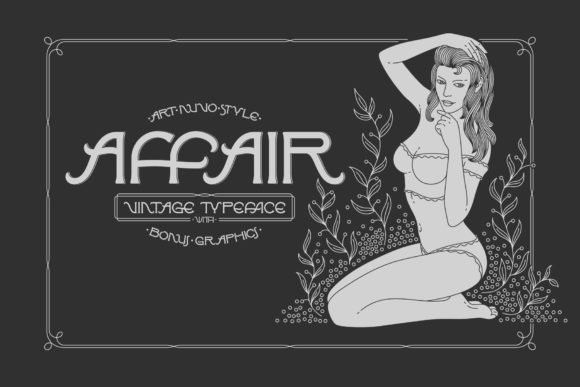
Affair Font: Elevate Your Designs with a Vintage Flair
In the realm of typography, fonts play a pivotal role in defining the aesthetic and tone of any design project. Whether you’re working on a branding campaign, a website, or marketing materials, the choice of font can significantly influence how your message is perceived. For those seeking a unique and captivating look, the Affair font stands out as an exceptional choice. This article explores the Affair font, a vintage-styled and distinct display font designed to infuse your designs with a beautiful and refreshing appeal.
Introduction to Affair Font
Affair is not just another font; it’s a design statement. Crafted with meticulous attention to detail, this vintage-styled display font is perfect for designers who aim to break away from the mundane and inject a dose of elegance and charm into their work. Its distinct character makes it suitable for a wide range of projects, from luxury brand logos and high-end advertising to stylish blogs and captivating social media graphics.
Key Features of Affair Font
So, what makes Affair font a must-have in your typography arsenal? Here are some of its standout features:
- Vintage Aesthetic: The Affair font boasts a classic, vintage look that adds a touch of sophistication and nostalgia to any design.
- Distinctive Characters: Each letter in the Affair font is carefully crafted to ensure uniqueness and legibility, making your text stand out.
- Versatility: Whether you’re designing for digital platforms or print, the Affair font adapts seamlessly, ensuring your design looks great across all mediums.
- Ease of Use: Despite its complex appearance, the Affair font is surprisingly easy to use, compatible with most design software, and requires minimal effort to integrate into your projects.
Use Cases for Affair Font
The versatility of the Affair font makes it suitable for a myriad of design applications. Here are some scenarios where this font truly shines:
- Branding and Logos: Create a lasting impression with a logo that embodies elegance and class. The Affair font can help establish a strong brand identity.
- Advertising and Marketing: Stand out in a crowded marketplace with eye-catching ad copy. The unique style of the Affair font ensures your message captures attention.
- Web Design: Enhance the user experience with a stylish and readable font. The Affair font can add a professional touch to your website’s typography.
- Social Media Graphics: Make your social media posts and stories more engaging with visually appealing text. The Affair font can help increase engagement and make your content more shareable.
Tips for Maximizing the Impact of Affair Font
To get the most out of the Affair font, consider the following design tips:
- Pair it Wisely: Combine the Affair font with simpler fonts for body text to create contrast and improve readability.
- Adjust Size and Color: Experiment with different sizes and colors to emphasize key messages and create visual hierarchy.
- Consider Line Spacing: Ensure adequate spacing between lines for better legibility, especially when using the font for longer texts.
The Affair font is more than just a typeface; it’s a design tool that can elevate your projects with its vintage charm and distinctiveness. Whether you’re a professional designer or a DIY enthusiast, this font offers a straightforward way to add a touch of elegance and sophistication to your work. With its versatility, ease of use, and captivating aesthetic, the Affair font is poised to become a staple in your typography collection.
Future of Typography with Fonts like Affair
The world of typography is continuously evolving, with vintage fonts making a significant comeback in modern design. Fonts like Affair are at the forefront of this trend, offering a blend of nostalgia and innovation. As design trends continue to shift, embracing unique and versatile fonts can provide a competitive edge and ensure your work remains fresh and engaging.
Final Thoughts
Incorporating the Affair font into your design projects can have a transformative effect, adding a layer of sophistication and charm that’s hard to achieve with standard fonts. Its vintage appeal, combined with its versatility and ease of use, makes it an excellent choice for designers looking to make a statement. Explore the possibilities of what you can create with the Affair font and discover how it can become an integral part of your design story.